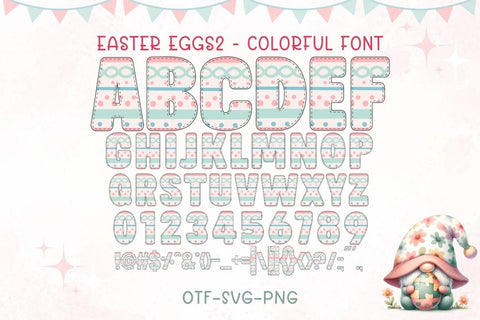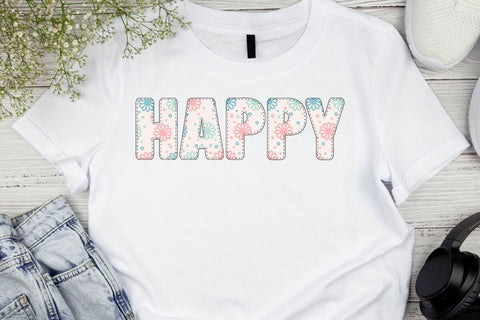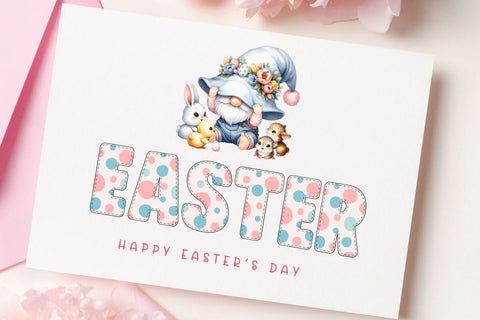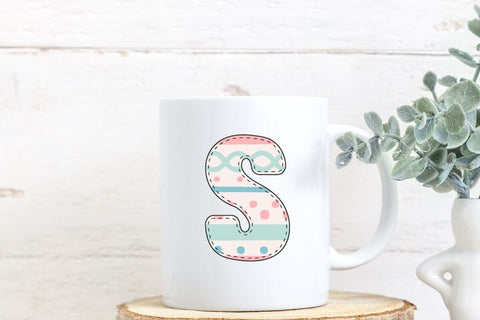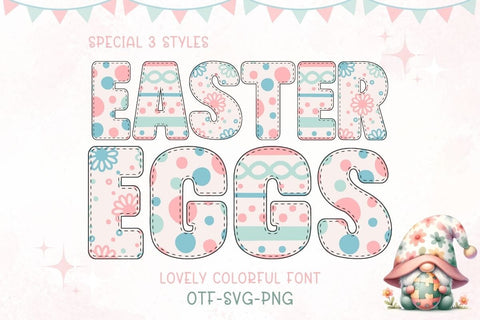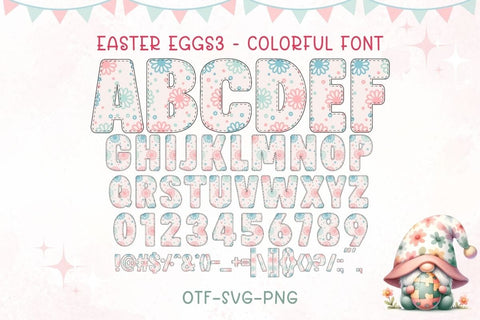
Bring sweet spring vibes to your designs with this Easter Eggs Colorful Font!
This adorable decorative alphabet features soft pastel colors, playful egg patterns, and a stitched-style outline—perfect for Easter projects, spring crafts, kids designs, and cheerful seasonal creations.
This font includes 3 special colorful styles, inspired by Easter eggs, flowers, and polka dots. It works beautifully for sublimation, printables, greeting cards, stickers, apparel, mugs, and party decorations.